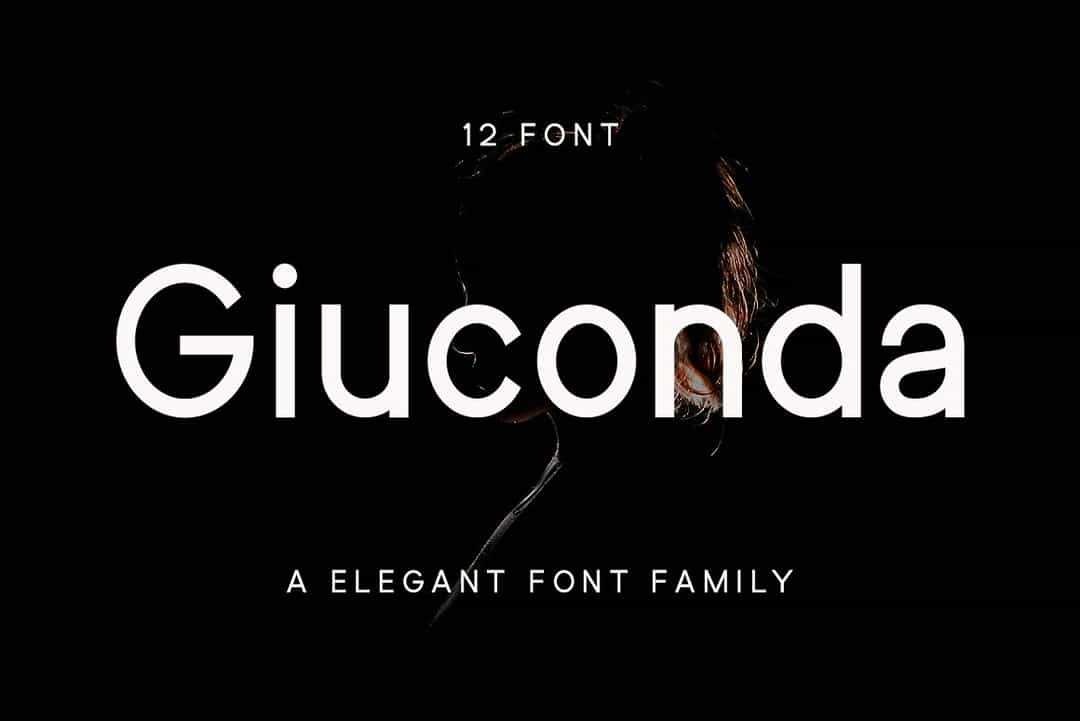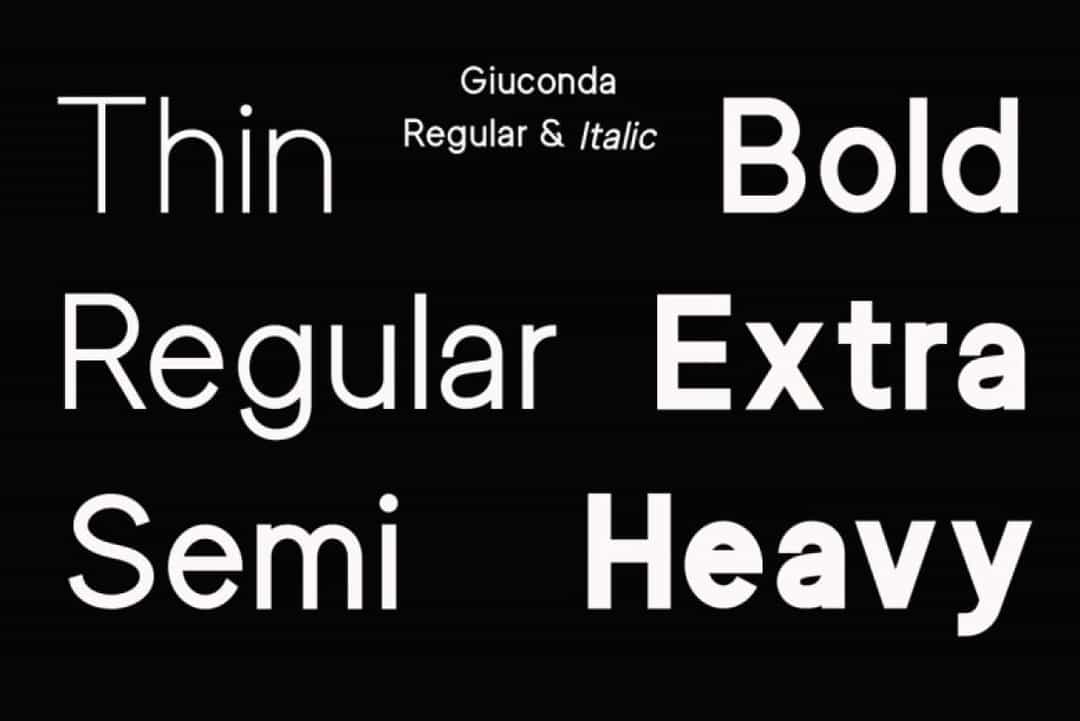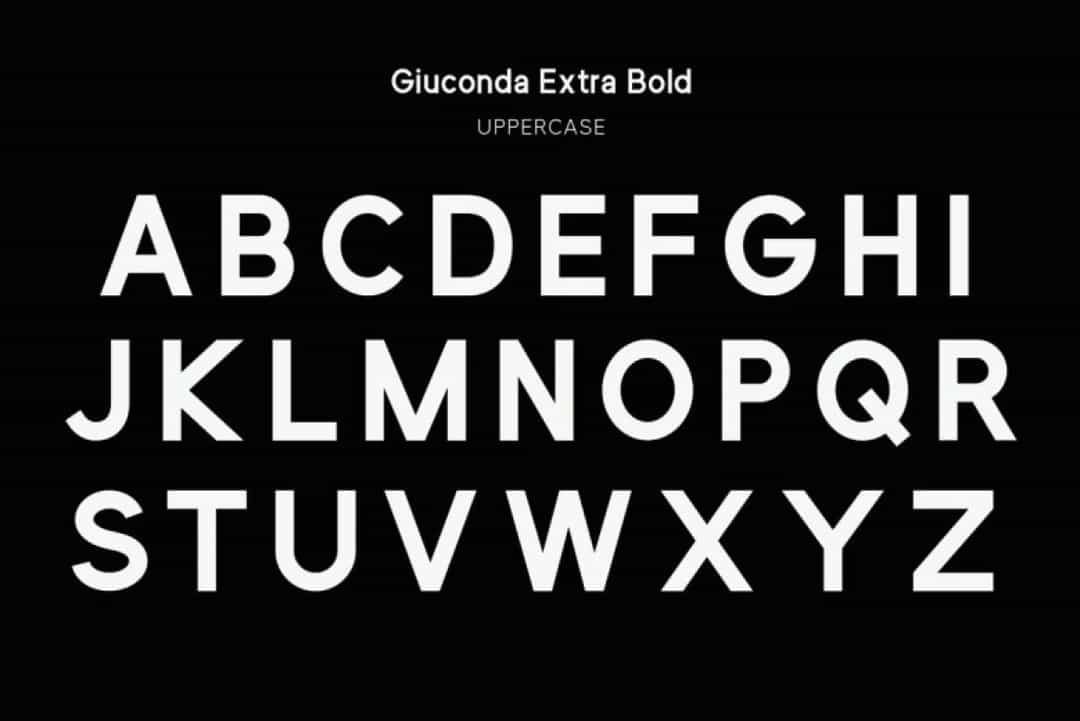
Giuconda is an elegant sans serif font designed by Sealoung that easily complements various designs, giving your creative ideas that extra punch! Integrate this font into your designs for creative inspiration and watch how they flourish!